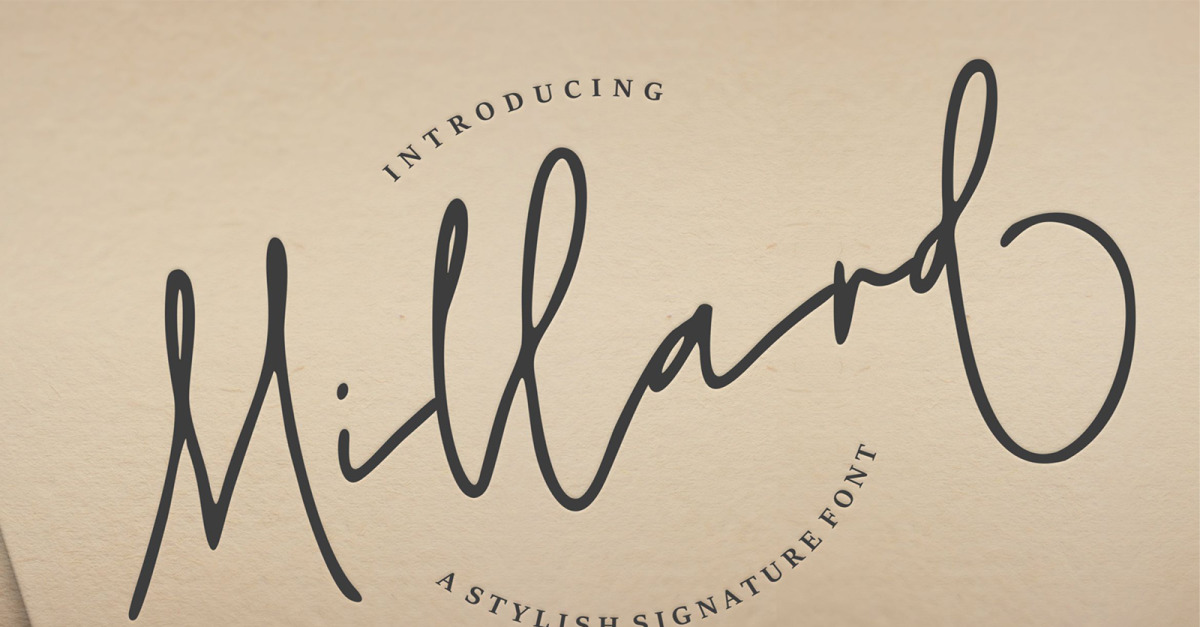
Millard | A Stylish Signature Font
**Millard | A Stylish Signature Font** with a calligraphy style, So beautiful on invitation like greeting cards, branding materials, business cards, quotes, posters, and more!